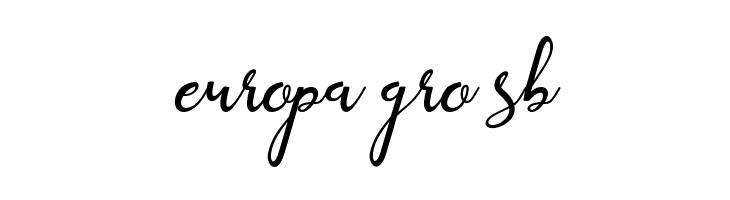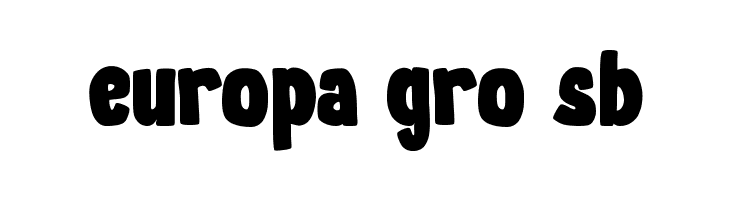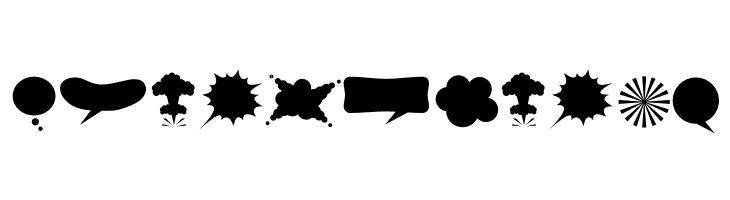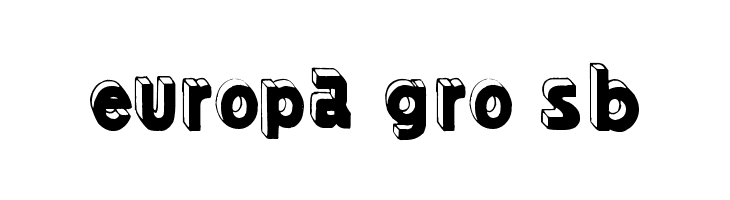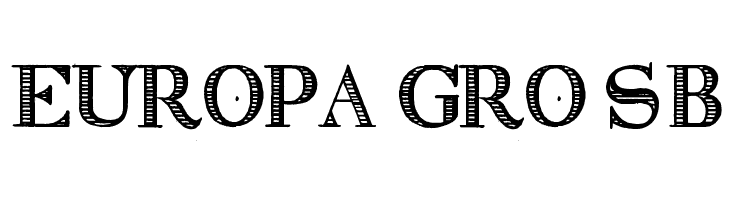
A cursive script font with elegant, flowing characters.
( Fonts by Polish Your Art )
A bold serif font with a distinctive striped pattern, combining classic and modern elements.
( Max Yazz - www.maxime-yazz-lamoureux-art.com/ )
A bold, geometric font with strong, blocky characters and a modern aesthetic.
( Fonts by Jason Arthur - JibbaJabba Fonts - www.myspace.com/jasonarthurloaded )
A playful, handwritten-style font with consistent strokes and rounded edges.
( Fonts by Jason Arthur - JibbaJabba Fonts - www.myspace.com/jasonarthurloaded )
A bold, italic font with a dynamic and modern style.
( Fonts by Jason Arthur - JibbaJabba Fonts - www.myspace.com/jasonarthurloaded )
A bold, handwritten-style font with smooth curves and an expanded width.
( Fonts by Jason Arthur - JibbaJabba Fonts - www.myspace.com/jasonarthurloaded )
A playful, handwritten-style italic font with smooth curves and consistent strokes.
( Fonts by Pinisiart )
A bold, playful typeface with a cartoonish and lively style.
( Fonts by Edy Wiyono )
A bold, high-contrast collection of comic-style symbols for dynamic visual storytelling.